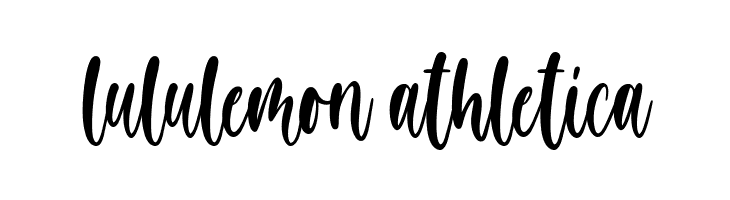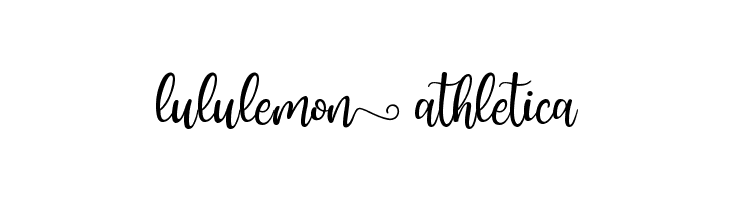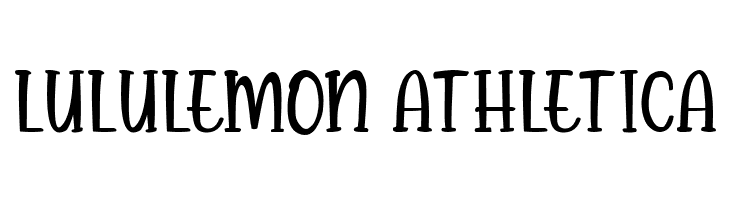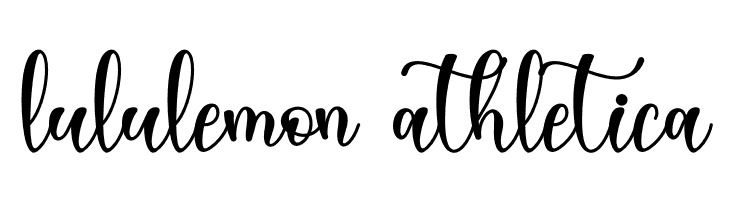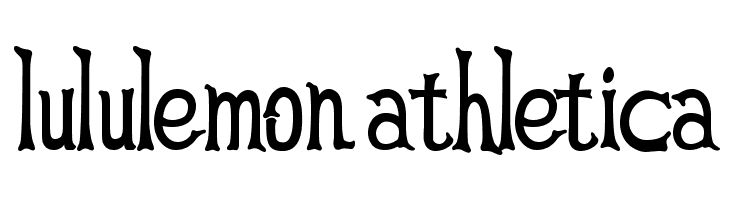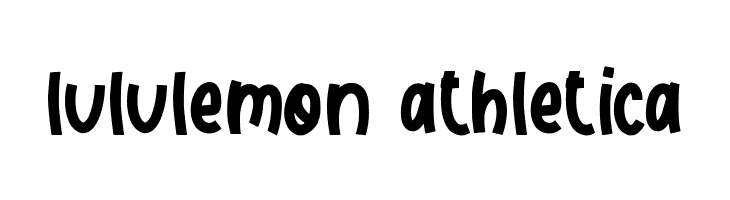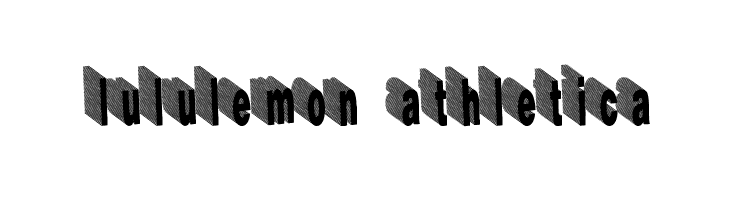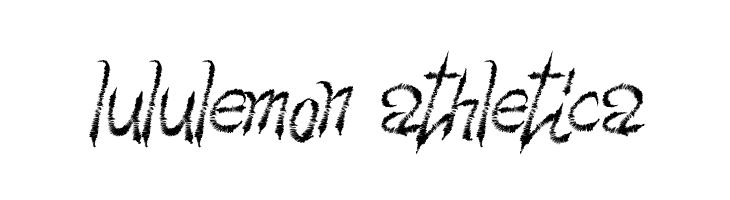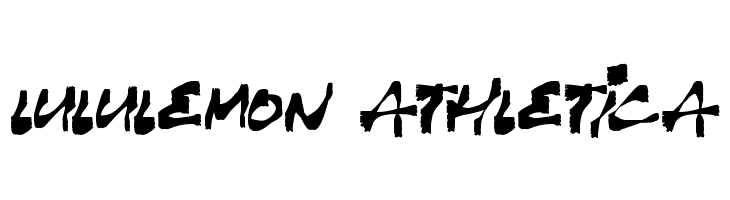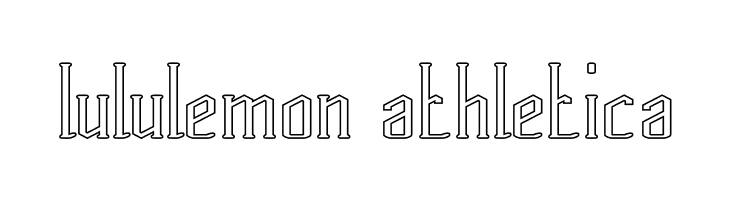
A playful font with characters inside balloon shapes, perfect for festive designs.
A bold, distressed gothic font with a grunge texture.
A bold, 3D font with a vintage-inspired, shadowed design.
An elegant and flowing script font with graceful curves and refined flourishes.
A modern, dotted decorative font with a playful and unique style.
A playful, hand-drawn font with bold, rounded letterforms.
A bold, fluid script font with interconnected, expressive strokes.
A bold, modern sans-serif font with clean lines and excellent readability.
A bold, textured font with a dynamic, brush-like appearance.
A playful and elegant script font with flowing, cursive letterforms and high contrast strokes.
A fluid, handwritten-style font with smooth, flowing lines and natural curves.
A bold, italic font with a modern and angular design.
A bold, geometric outline font with a modern and structured aesthetic.
A bold, modern font with a shadow effect created by horizontal lines.
A bold, geometric font with sharp serifs and a modern aesthetic.
A playful, hand-drawn serif font with bold, irregular strokes.
A bold, dynamic script font with elegant, flowing letterforms.
A playful, hand-drawn font with a whimsical and slightly spooky style.
A bold, playful handwritten font with thick strokes and dynamic shapes.
A bold, geometric font with angular and distinctive characters.
A bold, italicized font with angular, modern design elements.
A dynamic italic font with angular, elongated letterforms and sharp serifs.
A geometric, hollow font with angular lines and a modern aesthetic.
A modern, hollow, inverse font with geometric structure and consistent stroke width.
A modern, angular serif font with tall, narrow letterforms and strong vertical emphasis.
A modern, hexagon-patterned font with a bold and futuristic style.
( Fonts by Fikry Alif - Fikryal studio - https://www.creativefabrica.com/designer/mfikryalif/ref/222304/ - Personal-use only. For commercial use please contact owner. )
A lively, expressive handwritten font with fluid, sweeping strokes.
( Fonts by FG Studios )
A playful, bold font with rounded, thick strokes and a cartoonish style.
( Fonts by Abas Creative - Farhan Ramadhika - Personal-use only. For commercial use please contact owner. )
An elegant, flowing script font with ornate uppercase and smooth lowercase letters.
A playful, hand-drawn font with thick, rounded strokes and a whimsical style.
A modern, elegant script font with flowing, cursive strokes.